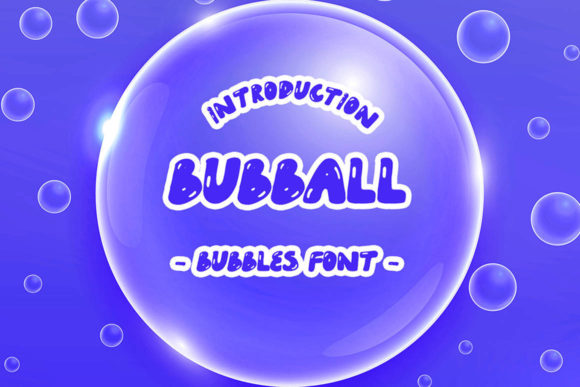
The Magical World of Bubball Font: A Designer’s Delight
I’ll never forget the moment I stumbled upon Bubball Font while working on a whimsical craft project for a client. I was on a mission to find the perfect display font that would bring a playful, bubbly vibe to the design. After hours of scrolling through font libraries, I finally hit the jackpot with Bubball. It was love at first sight! ✨ The font instantly elevated my design, making it feel more youthful and engaging. In this article, I’ll share my experience with Bubball Font, its features, and how to make the most of it in your creative projects.
An Honest Review of Bubball Font
What I Love About Bubball Font
- ✅ Cute and Bubbly Aesthetic: Bubball Font is everything I hoped for and more. Its playful, rounded letters are perfect for designs that require a friendly, approachable feel.
- ✅ Ease of Use: This font is incredibly easy to work with, even for those who are new to design or typography.
- ✅ Versatility: Bubball Font can be used for a wide range of projects, from crafting and DIY tutorials to social media graphics and invitations.
While Bubball Font is a delightful addition to any design, there are a few things to keep in mind: 🤔
- ⚠️ Legibility at Small Sizes: Like many display fonts, Bubball can become less legible at very small sizes. It’s best used at larger sizes where its playful details can shine.
- ⚠️ Limited Formality: Due to its bubbly nature, Bubball Font might not be the best choice for projects that require a more formal or professional tone.
The Backstory of Bubball Font
Bubball Font was designed with the intention of creating a playful, bubbly typeface that would bring joy to designs. The designer aimed to craft a font that felt both whimsical and approachable, perfect for creative projects that require a friendly touch. While the exact details of the design process are not publicly known, it’s clear that Bubball Font was created with the goal of making designs more engaging and fun.
Q: What type of projects is Bubball Font best suited for?
A: Bubball Font is ideal for creative projects that require a playful, bubbly vibe, such as crafting tutorials, social media graphics, invitations, and DIY projects.
Q: Is Bubball Font available in different weights or styles?
A: Currently, Bubball Font is available in a single weight. However, the designer may release additional weights or styles in the future.